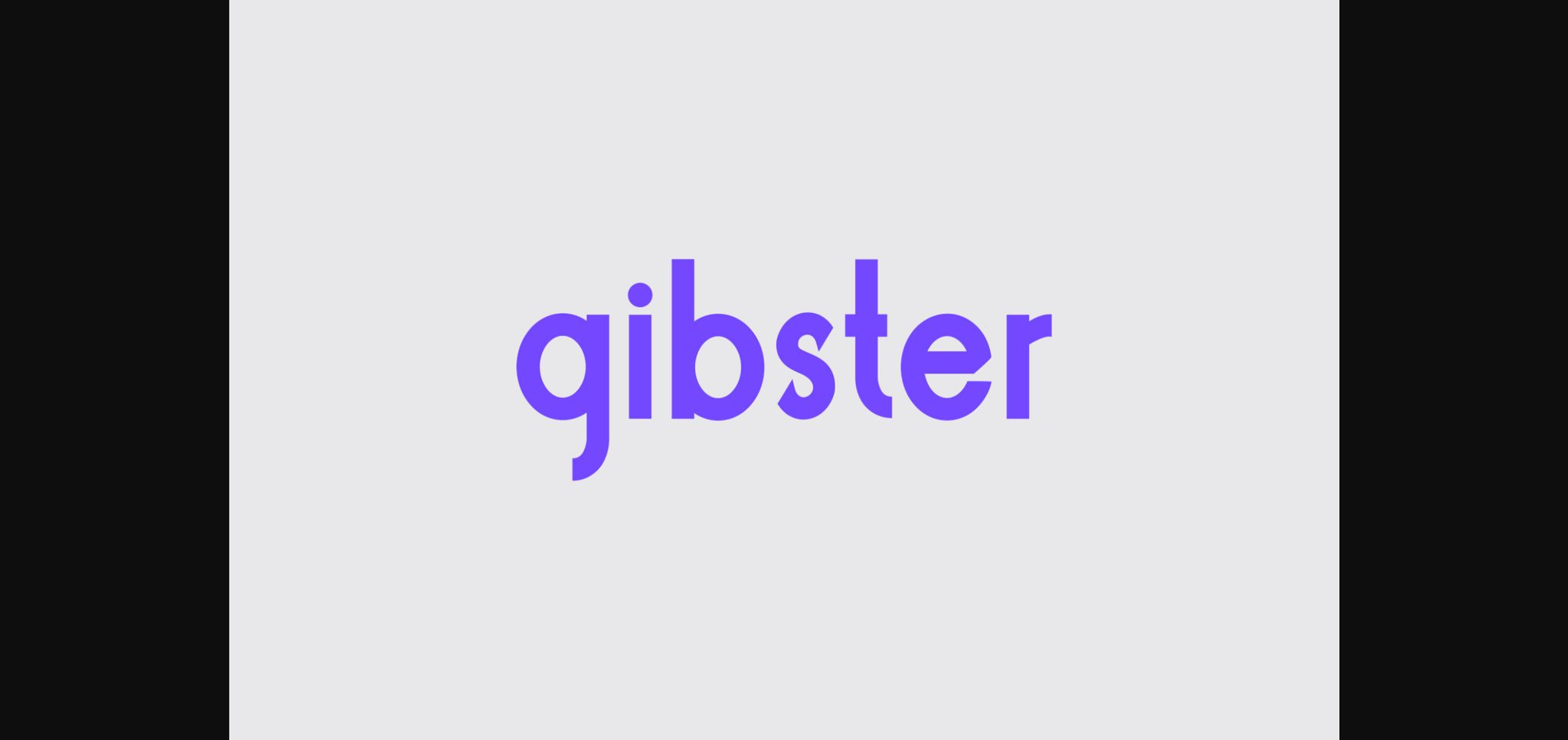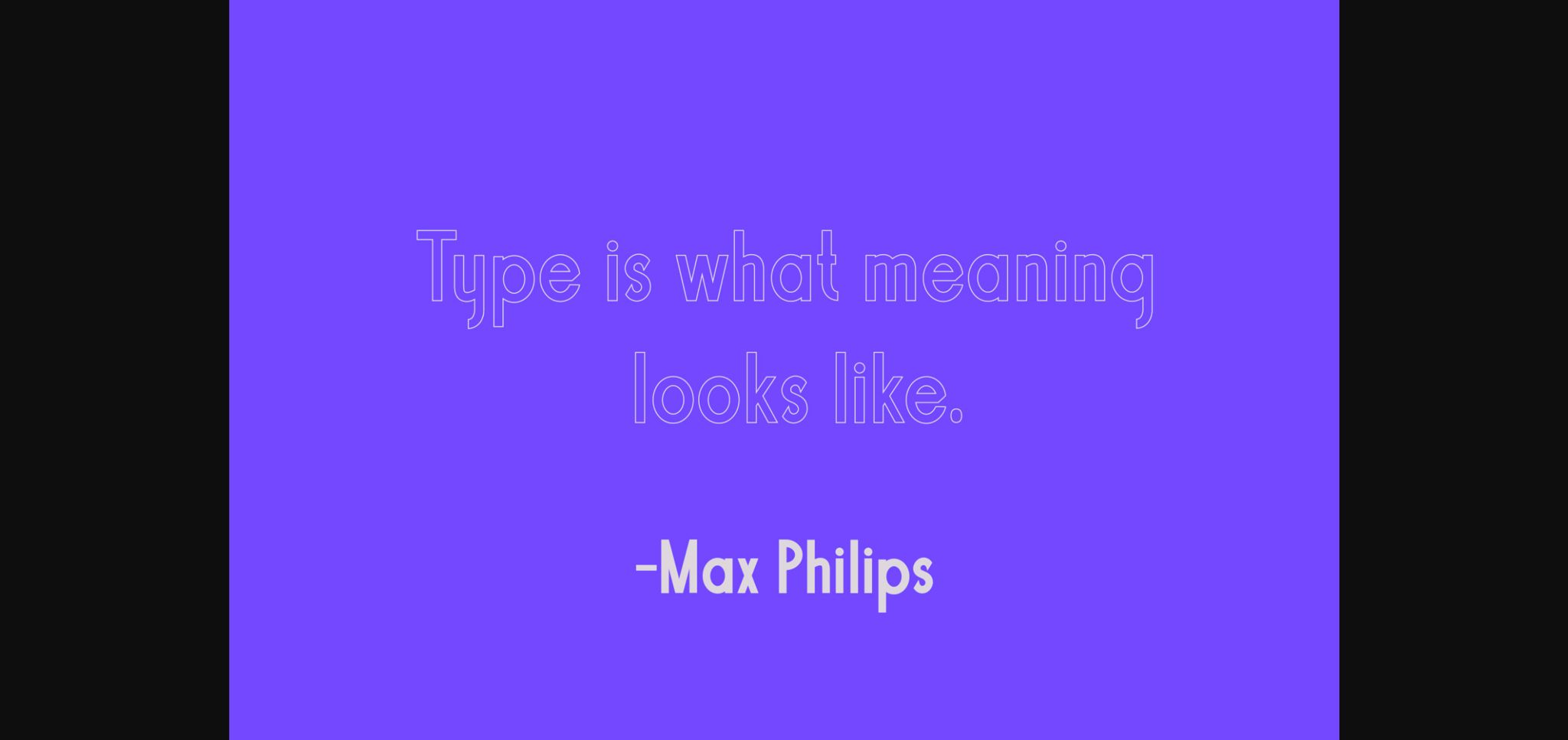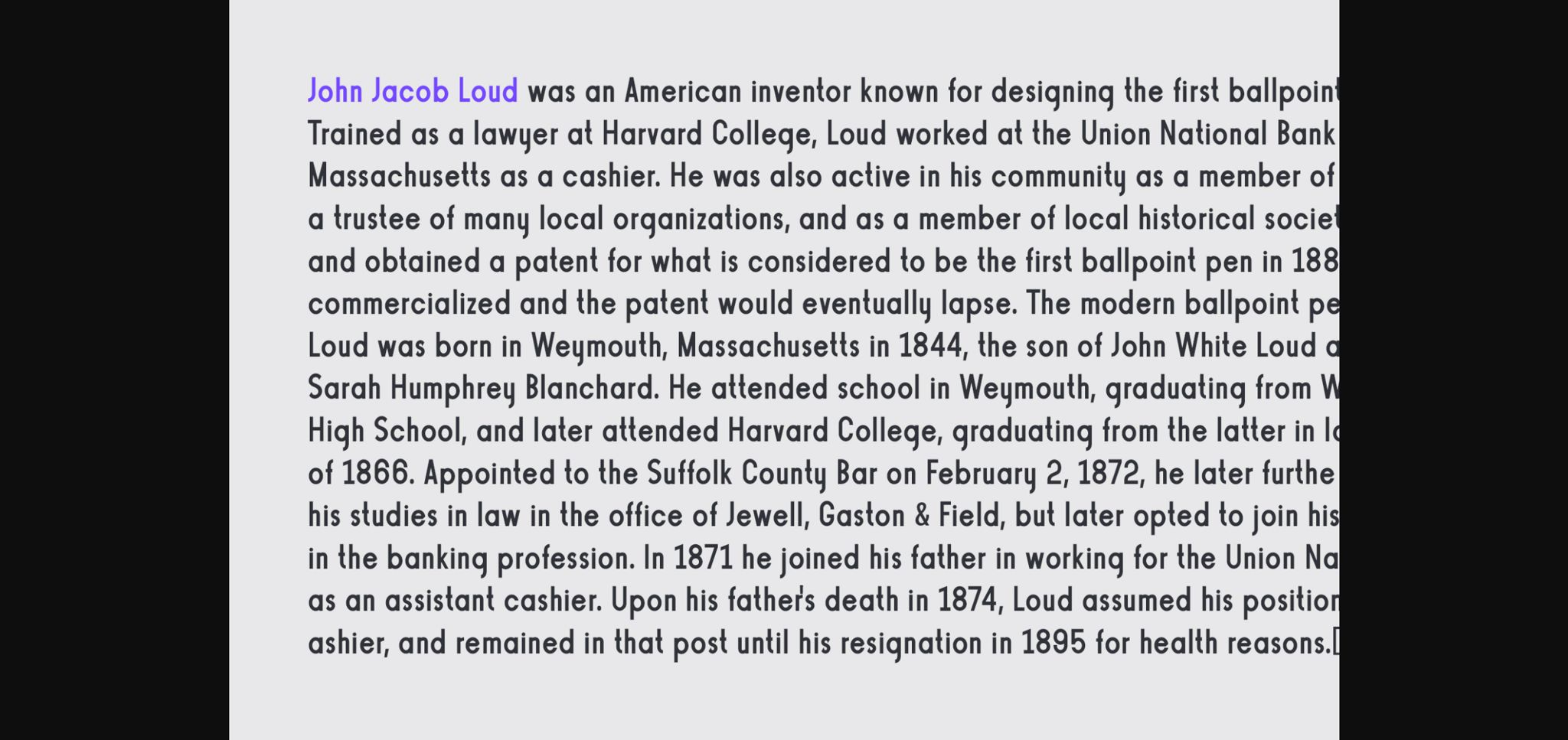
About Gibster Font
Gibster is a sharp yet simple lettered sans serif font. It can easily be matched to an incredibly large set of projects, so add it to your creative ideas and notice how it makes them stand out!